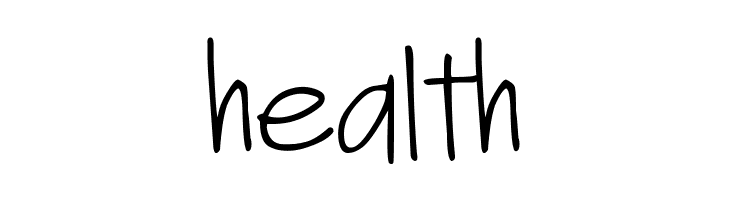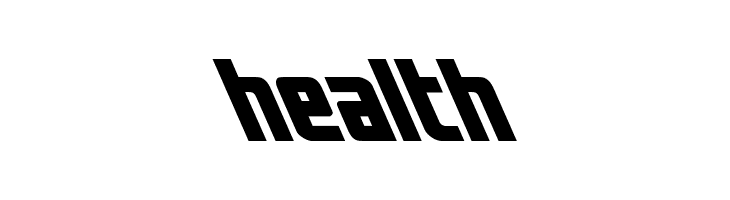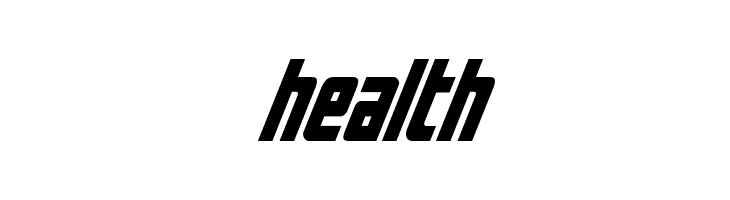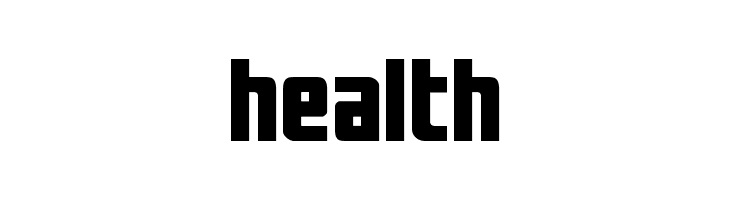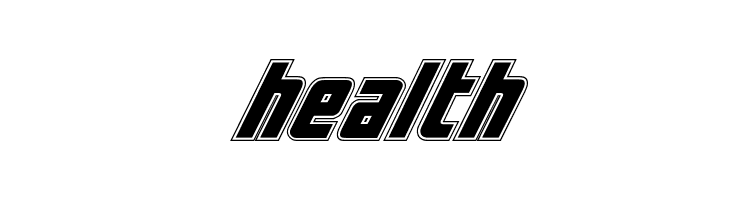
A bold, decorative font with intricate line work and a futuristic, technological feel.
A bold, expressive handwritten font with fluid strokes and a playful touch.
A bold, geometric, and decorative font with a futuristic style.
A dynamic and playful handwritten font with fluid, cursive strokes.
A lively, cursive handwritten font with fluid strokes and a personal touch.
A bold, sketch-style font with a playful, hand-drawn appearance.
A bold, whimsical font with playful curves and unique character shapes.
A bold, modern font with a unique slashed design for dynamic visual impact.
A bold, distressed font with a grunge, vintage appearance.
A bold, italicized typeface with a dynamic, racing-inspired design.
A bold, distressed font with a grunge texture and rugged, urban style.
A playful, whimsical font with flowing, curvy lines and unique letterforms.
A playful, bold font with rounded, dynamic characters and a whimsical charm.
A bold, playful, and decorative font with a whimsical, retro style.
A dynamic and fluid script font with elegant, flowing letterforms.
A bold, decorative font with exaggerated curves and thick strokes.
A bold, decorative font with snow-capped letters for a festive look.
A playful, dripping font with bold, rounded characters ideal for creative projects.
A playful, snow-capped font with bold, rounded characters perfect for winter themes.
A playful, snow-themed decorative font with bold, blocky letters.
A bold, 3D font with a shadow effect, perfect for impactful designs.
A bold, festive font with a snowy, frosted design on each character.
A bold, playful font with rounded edges and a whimsical style.
A bold, distressed font with a grunge aesthetic and textured, worn appearance.
A bold, geometric font with a modern, industrial aesthetic and wide character spacing.
A bold, rounded font with a playful and modern style.
A gritty, distressed font with a rugged, textured appearance.
A playful and bold font with dynamic curves and artistic flair.
A bold, playful font with exaggerated curves and a whimsical flair.
A bold, italicized font with strong, dynamic strokes and a cohesive design.